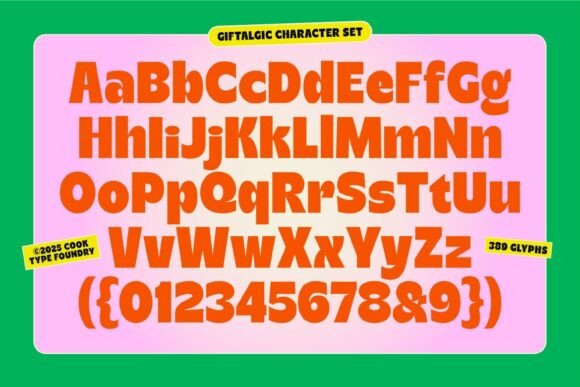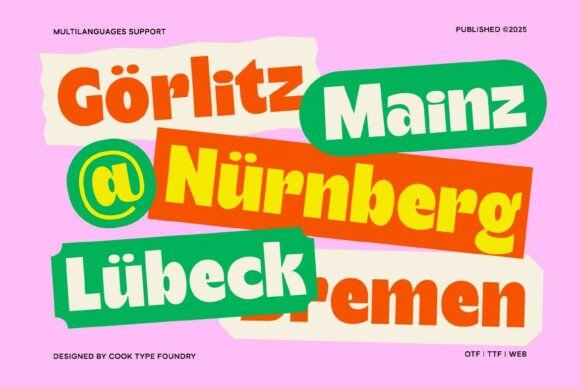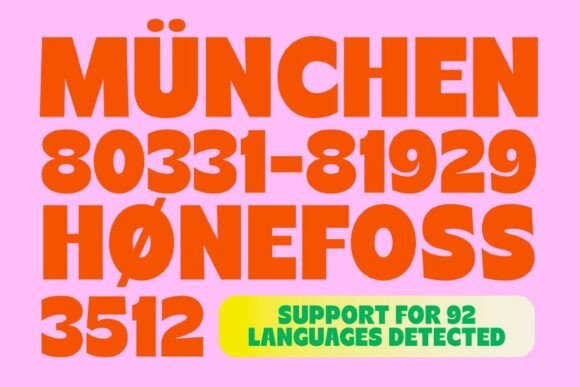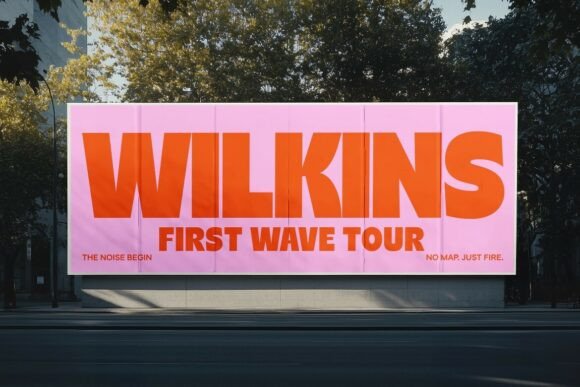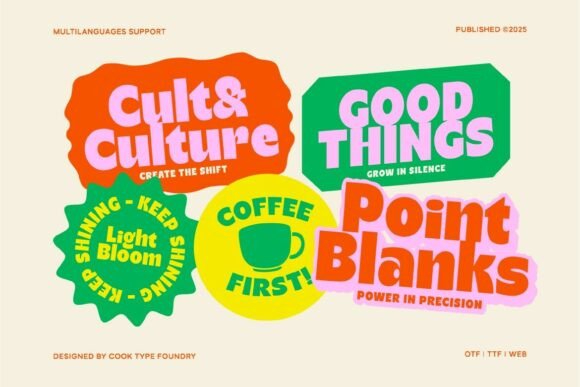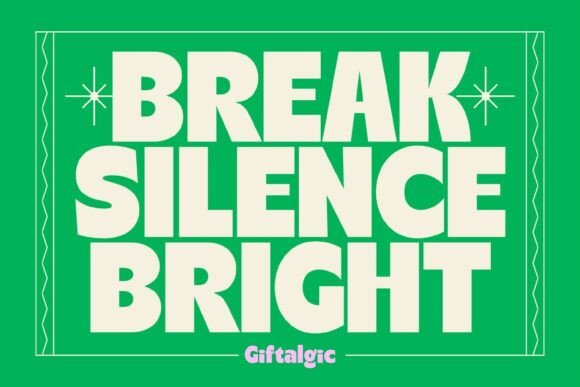
The Giftalgic Font: A Bold and Playful Typeface for Nostalgic Designs
I’ll never forget the design project that led me to discover the Giftalgic font. I was working on a retro-themed poster for a client’s vintage-inspired clothing brand, and I was struggling to find the perfect font. I wanted something that would evoke the fun, carefree vibe of the 1970s, but also feel fresh and modern. That’s when I stumbled upon Giftalgic, and it instantly became the star of my design.
Giftalgic is a bold font that blends a classic 70s vibe with a touch of modern design. It’s perfect for posters, logos, and branding that aim to feel playful and nostalgic, yet fresh and contemporary. In this article, I’ll share my honest review of the font, provide a practical guide on how to use it, and explore similar fonts and design inspiration.
- ✅ Unique blend of retro and modern styles: Giftalgic seamlessly combines the funky, playful vibe of the 1970s with a clean, contemporary aesthetic.
- ✅ Highly legible: Despite its bold and decorative nature, Giftalgic remains easy to read, even at smaller font sizes.
- ✅ Versatile: This font is perfect for headlines, logotypes, magazines, packaging, quotes, movies, games, cover albums, book covers, and flyers.
Small Quirks and Limitations 🤔
- ⚠️ Limited use for body text: Due to its bold nature, Giftalgic might not be the best choice for lengthy body text. It’s ideal for headlines and titles, but consider a complementary font for longer content.
- ⚠️ Some glyphs may require manual adjustment: Depending on the design, you might need to tweak certain glyphs to ensure they fit perfectly. This is a minor quirk, but worth mentioning.
Designer Inspiration: The Story Behind Giftalgic
Giftalgic was created by a talented designer who drew inspiration from the iconic typography of the 1970s. The font’s unique blend of retro flair and modern style makes it a standout in any design. While the designer’s story might be fictional, the font’s impact on designs is very real.
Q: What makes Giftalgic unique?
A: Giftalgic’s unique blend of classic 70s style and modern design elements sets it apart. It’s perfect for creating playful, nostalgic designs that still feel fresh.
Q: Does Giftalgic support OpenType features?
A: Yes, Giftalgic supports OpenType features, including stylistic alternates and glyphs. This allows for a high degree of customization and creativity in your designs.
Q: Is Giftalgic suitable for body text?
A: While Giftalgic is highly legible, its bold nature makes it more suitable for headlines and titles. For body text, consider pairing it with a complementary font for better readability.